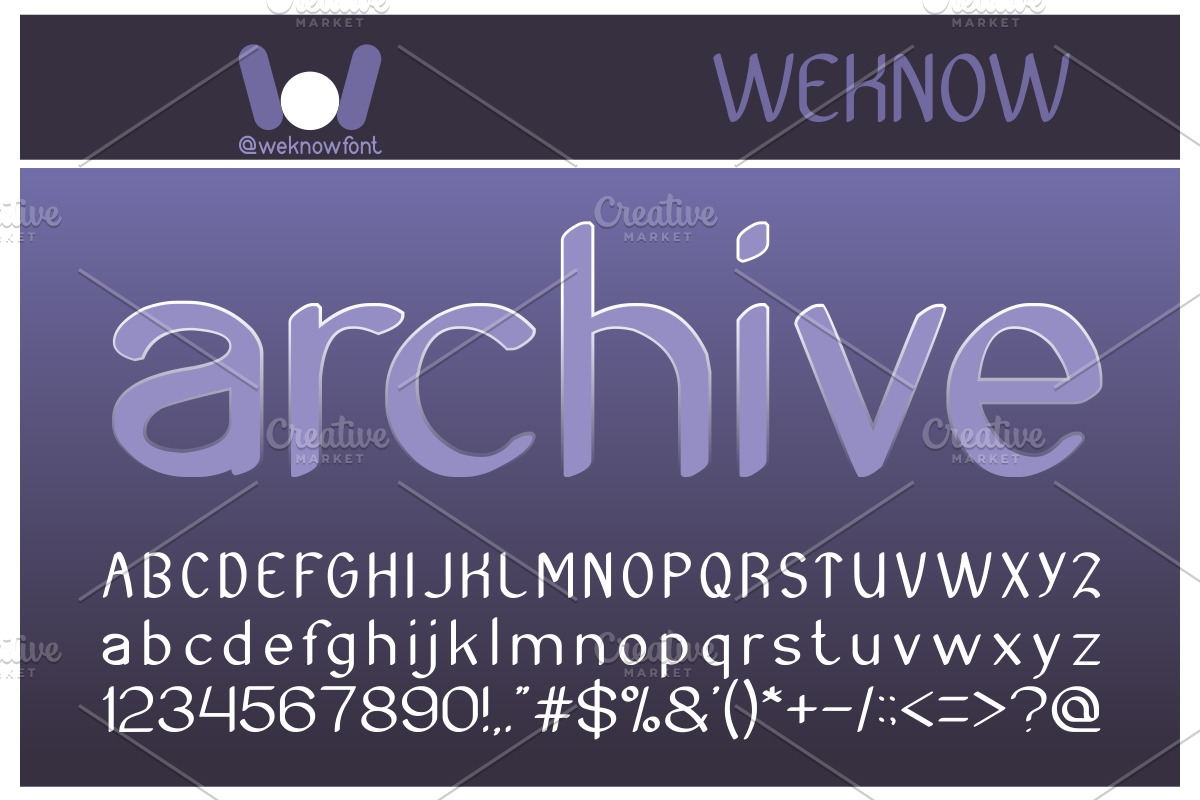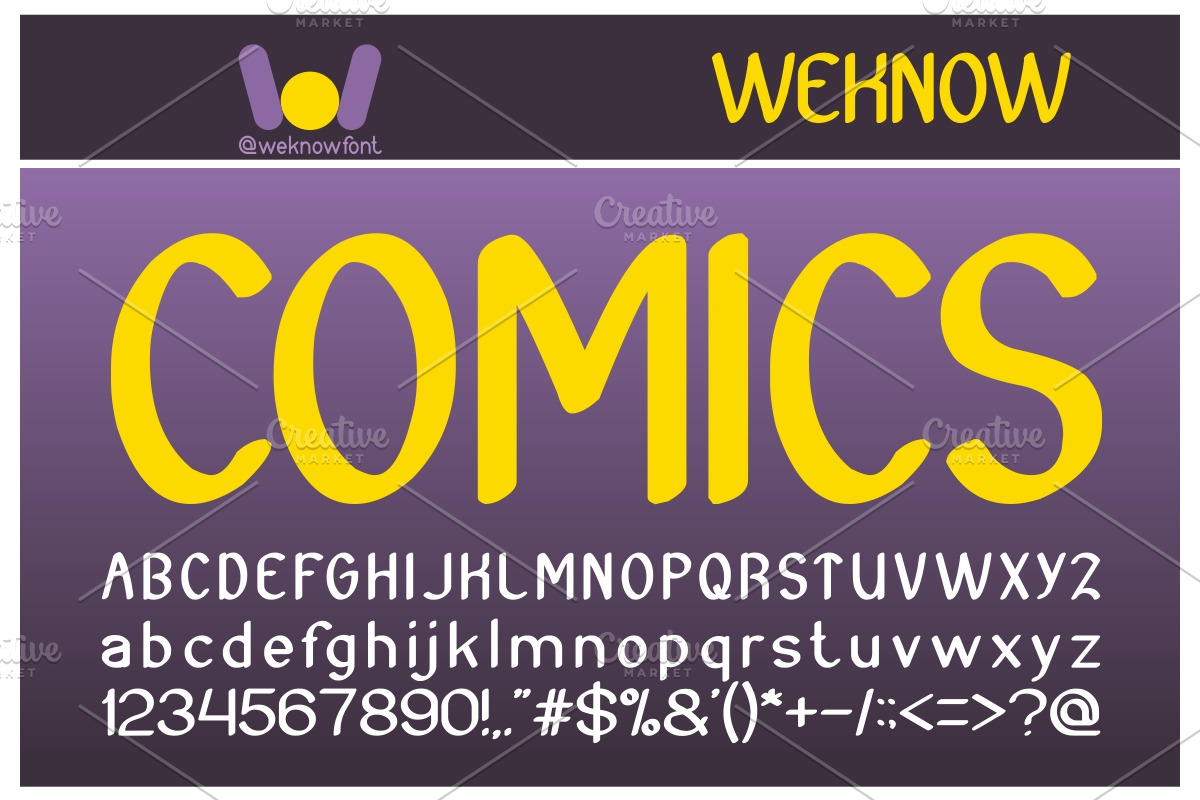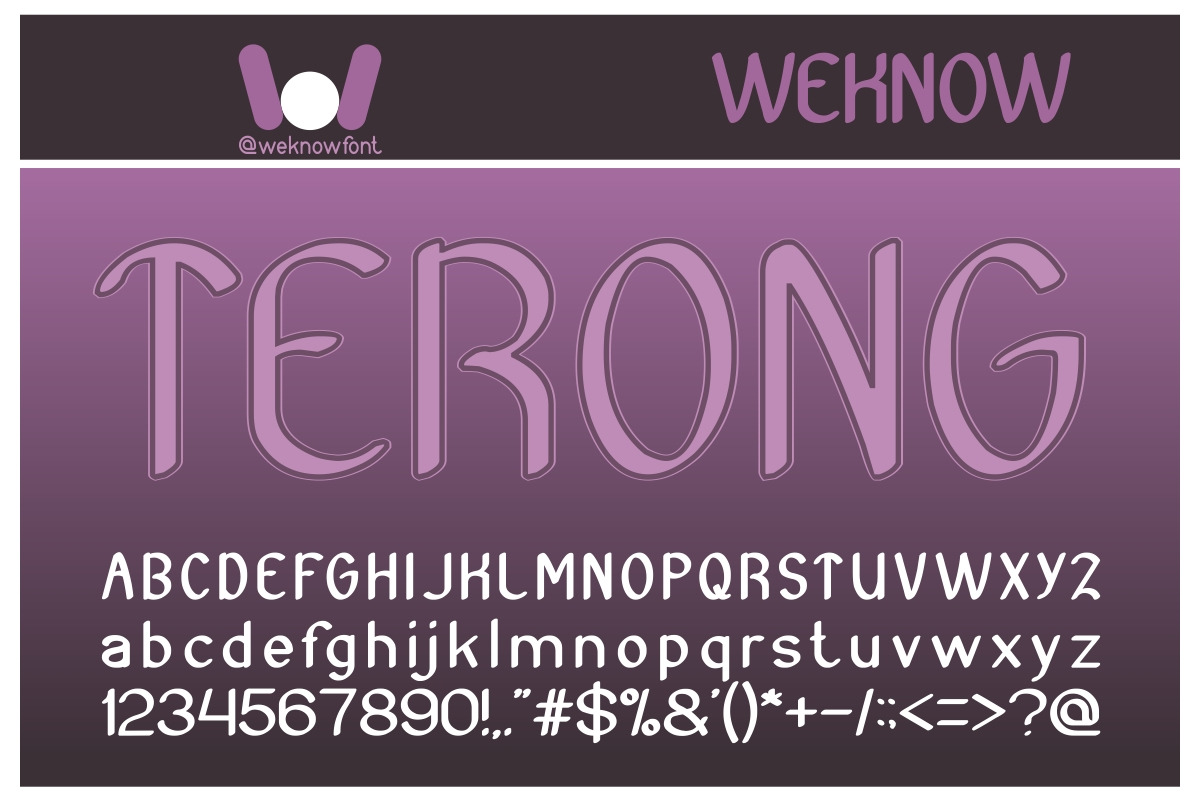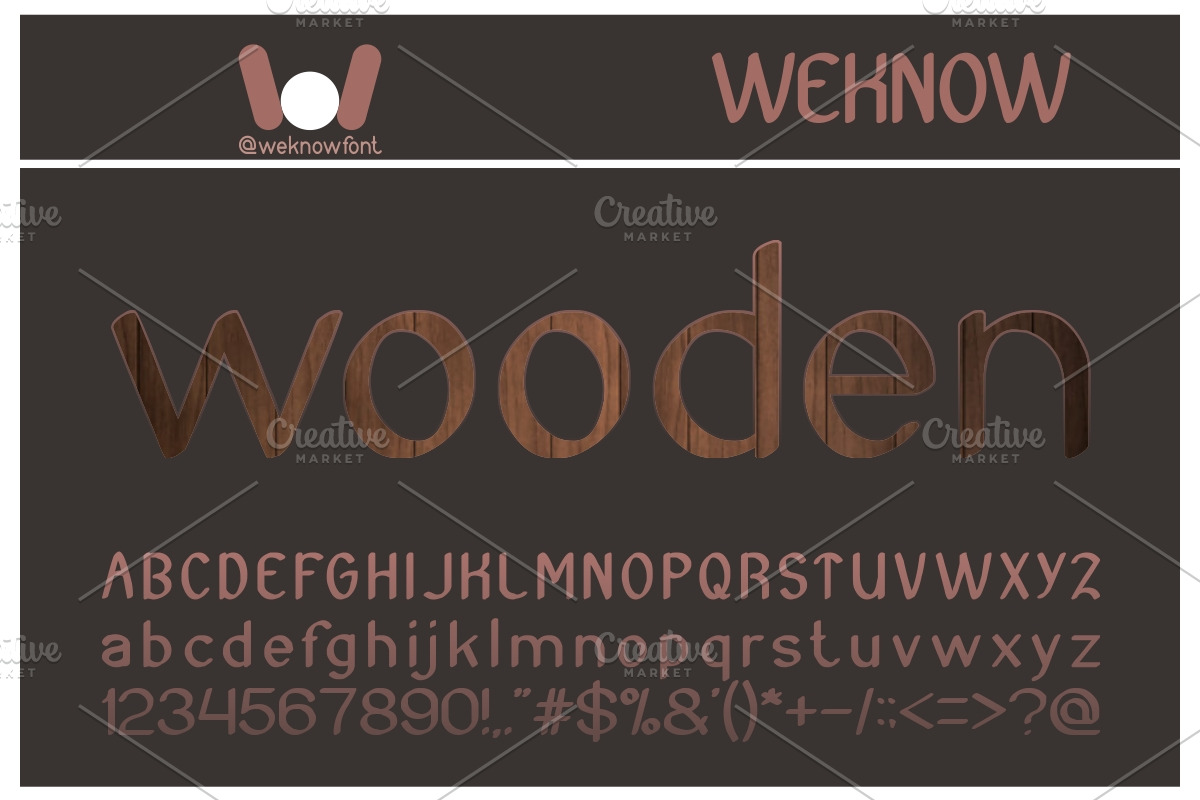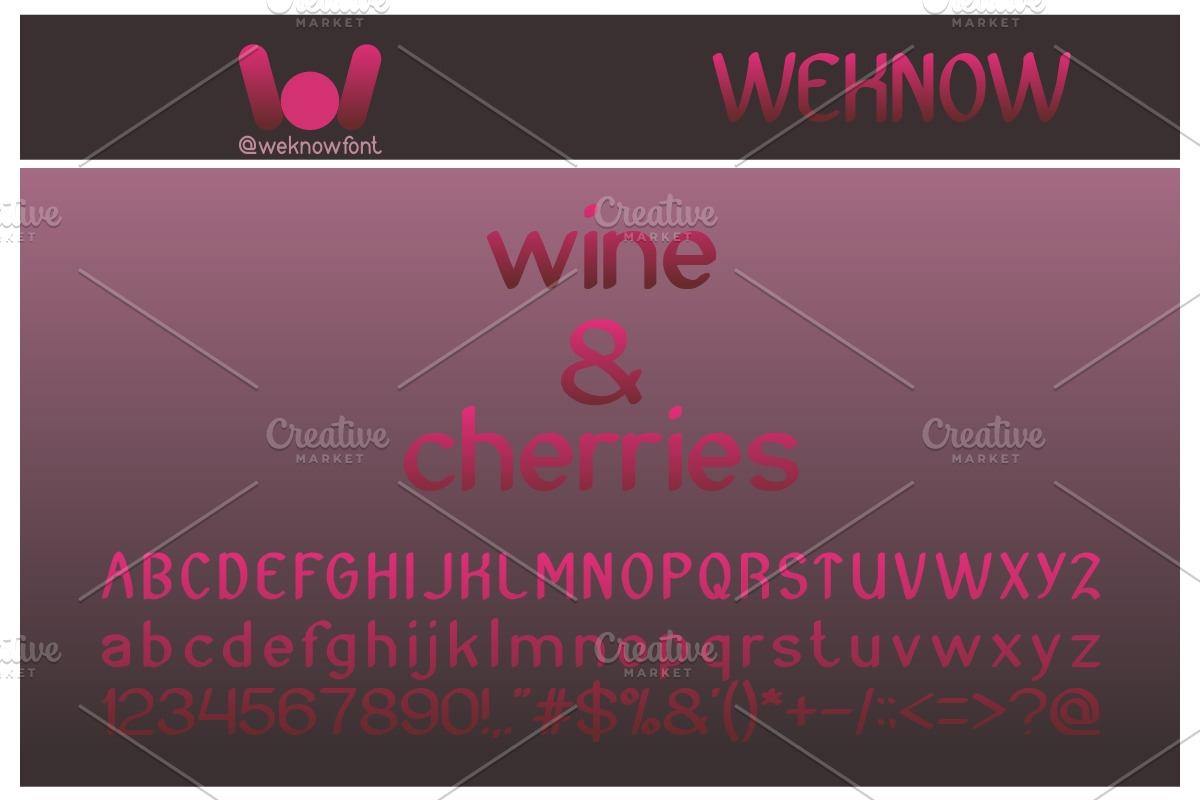
archive font
archive font by weknow is a font selected for branding, posters, packaging, typography.
archive font by weknow fits naturally into Branding, posters, packaging, typography.